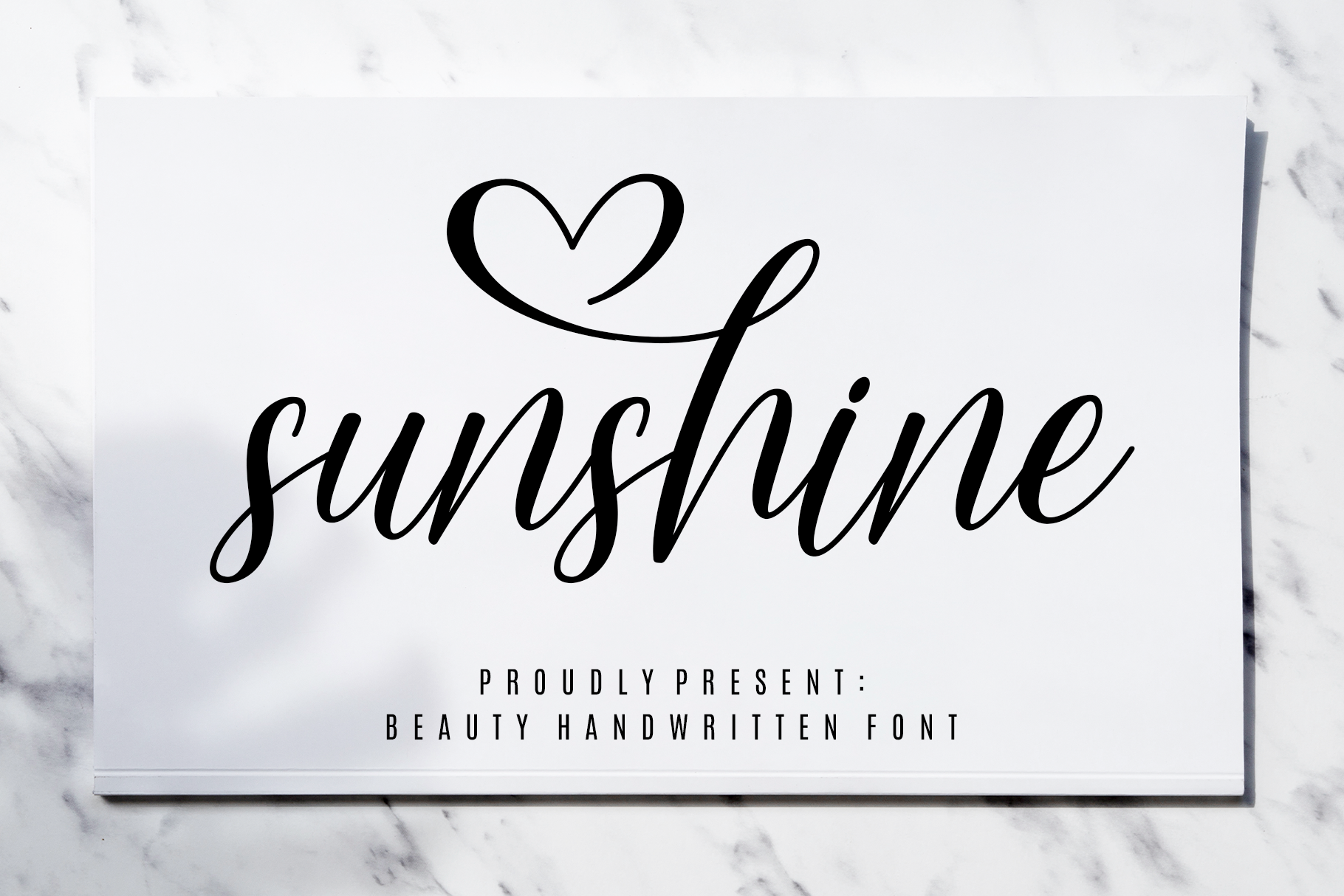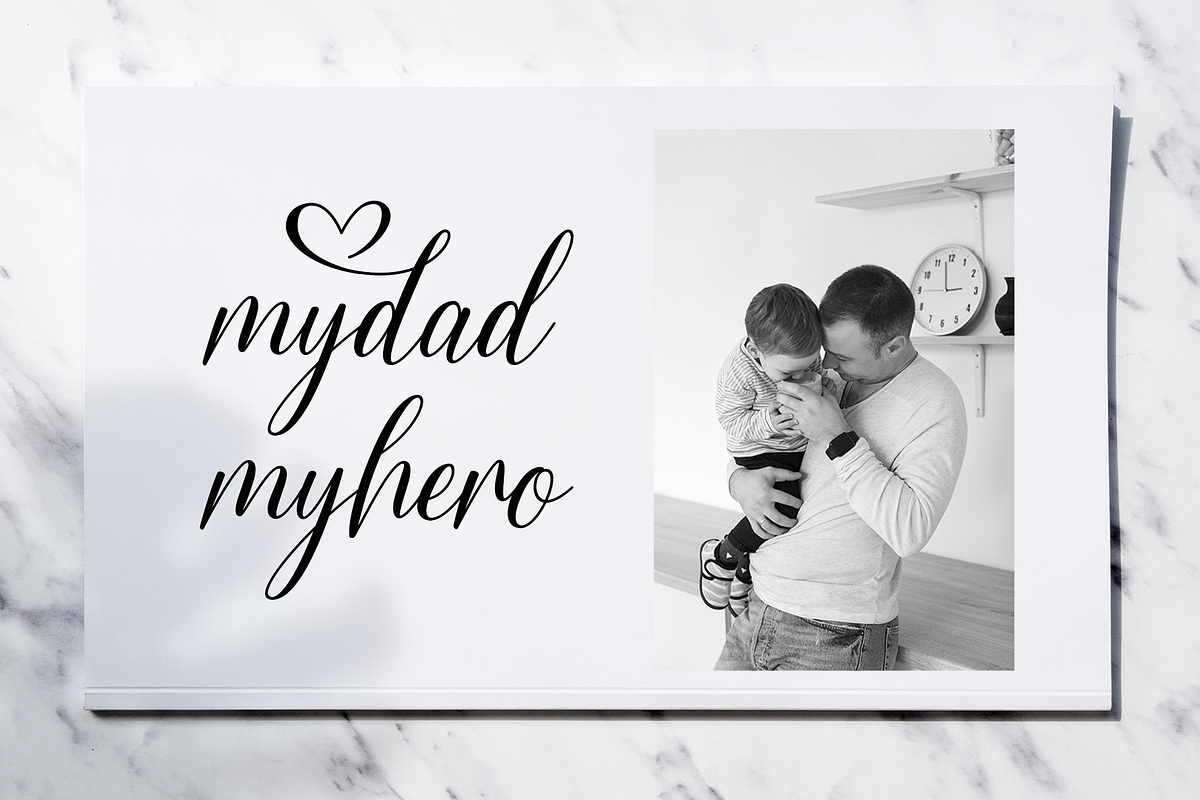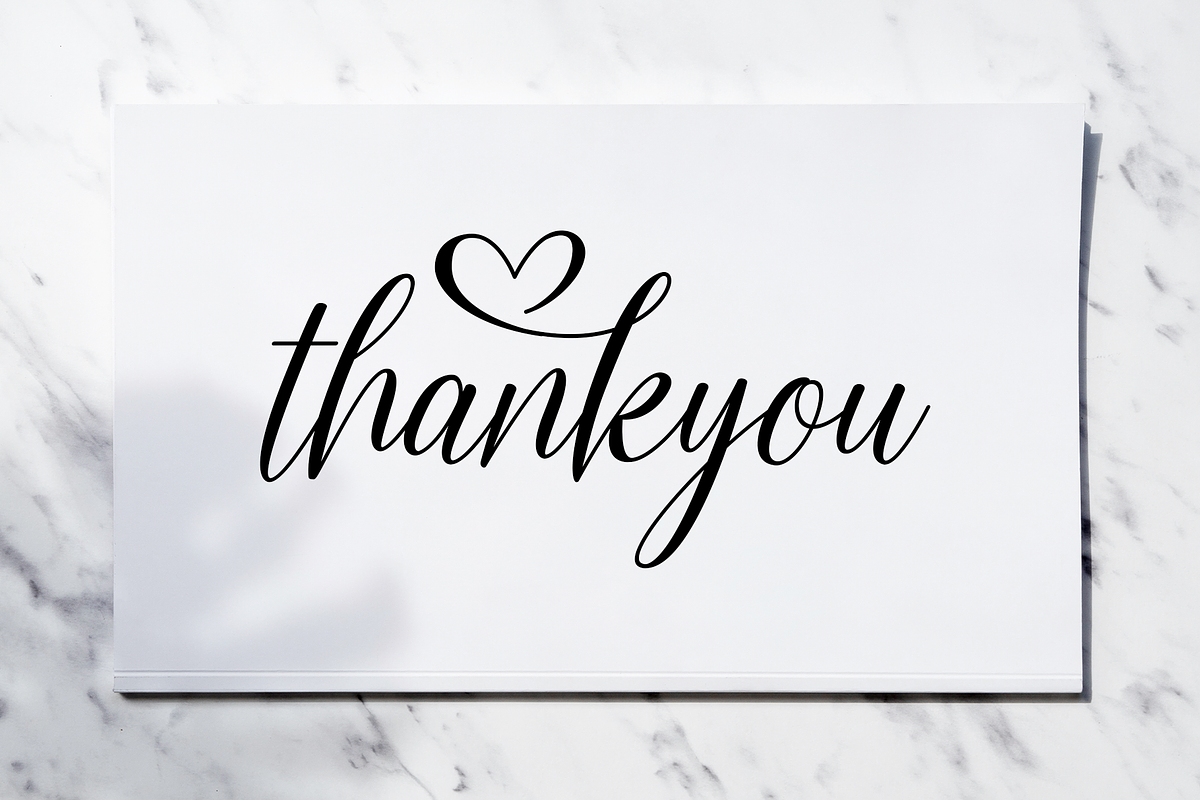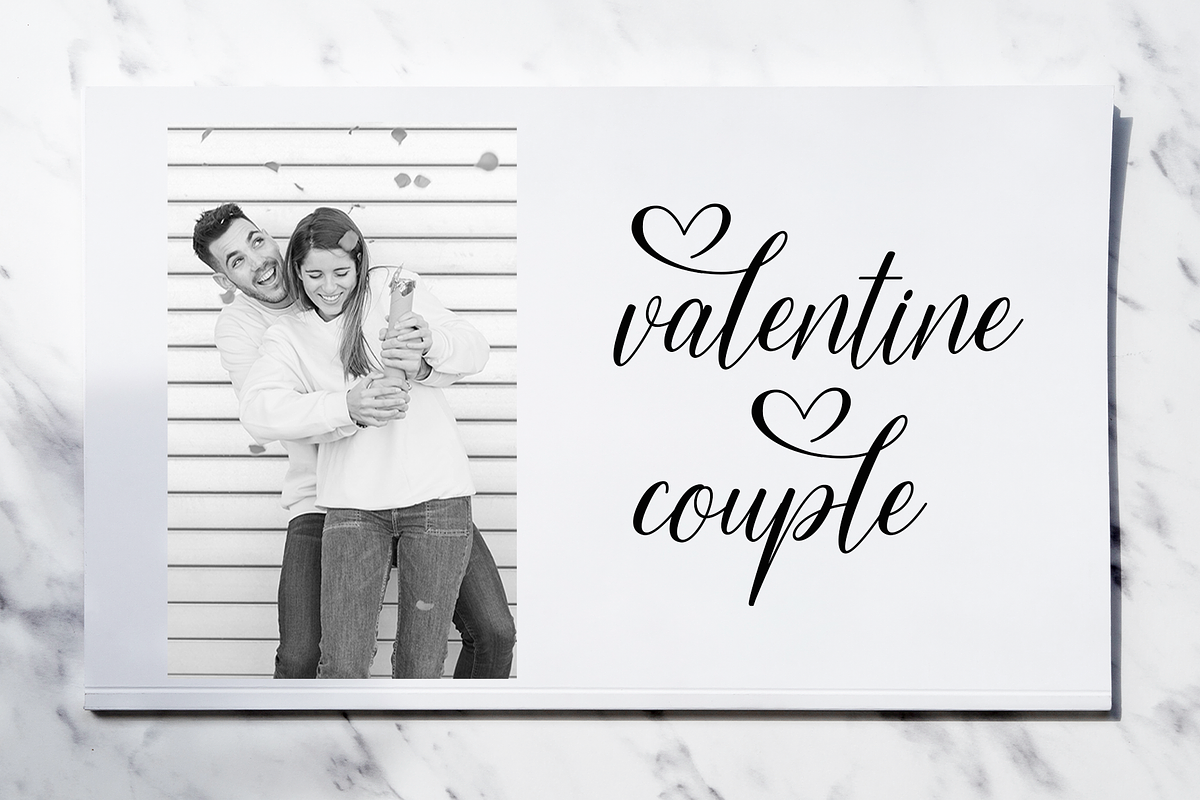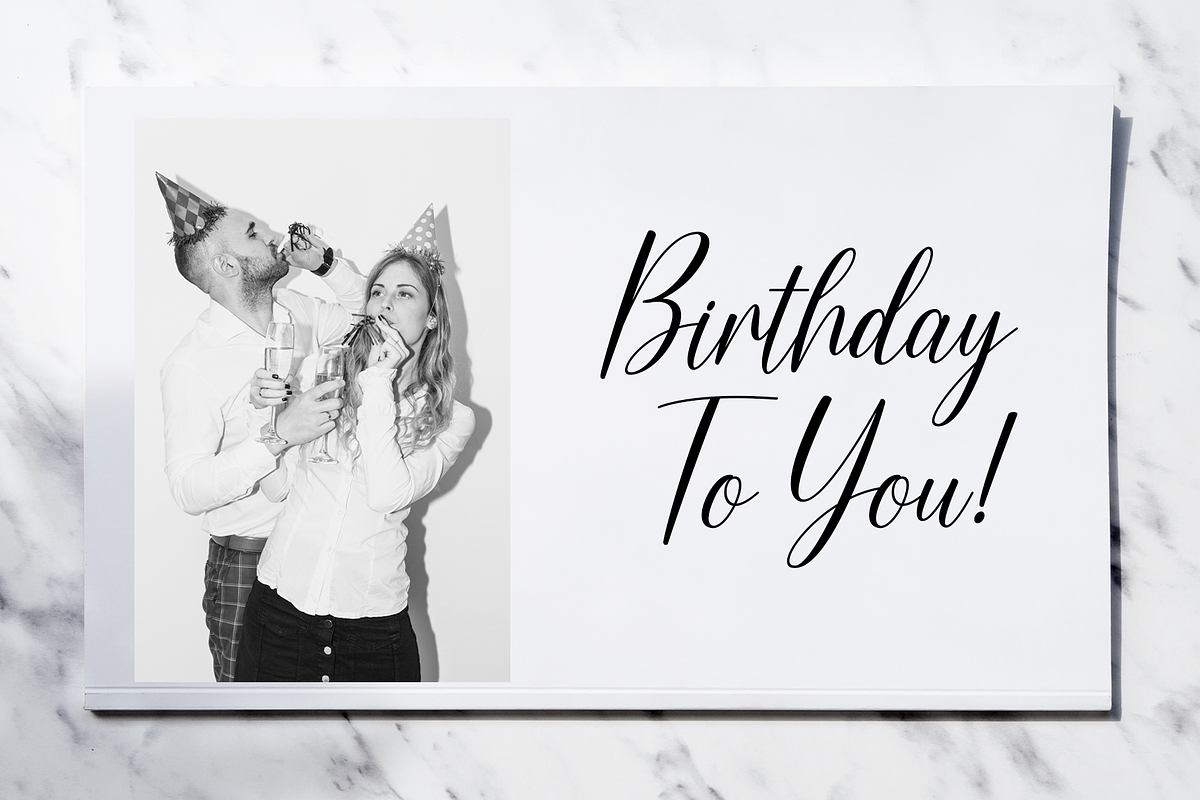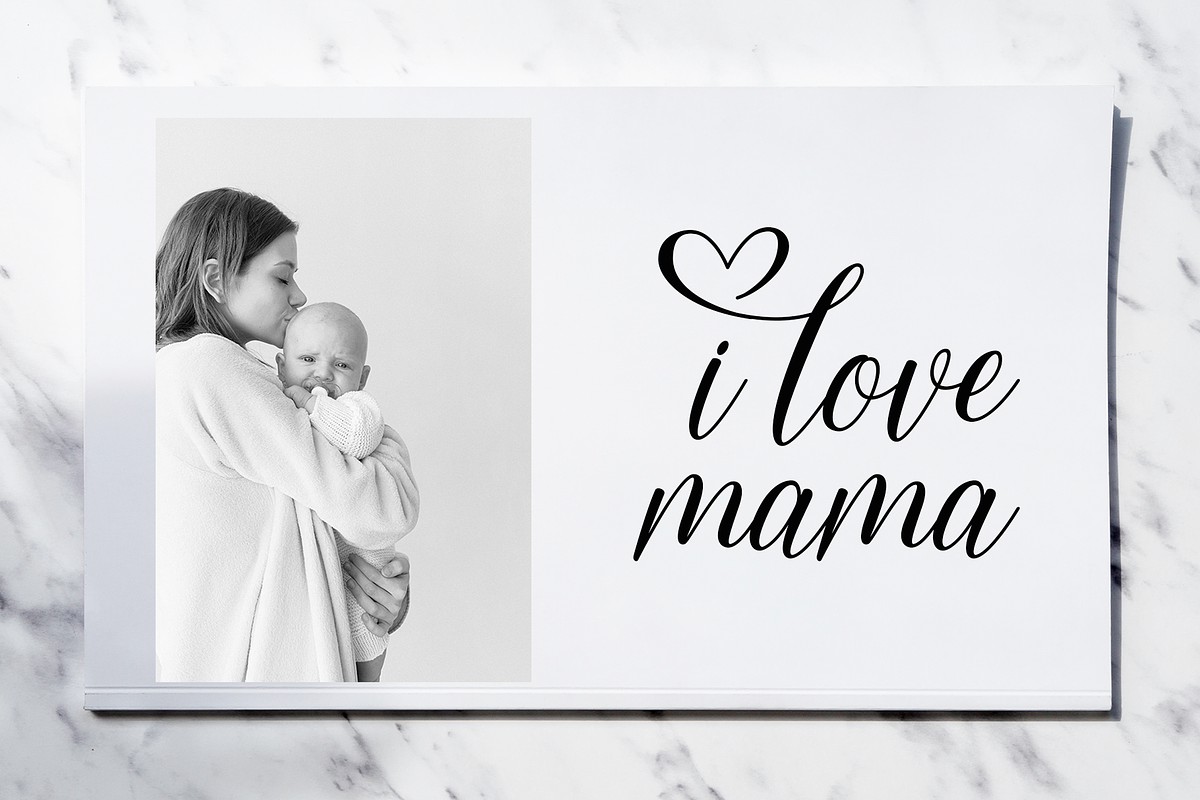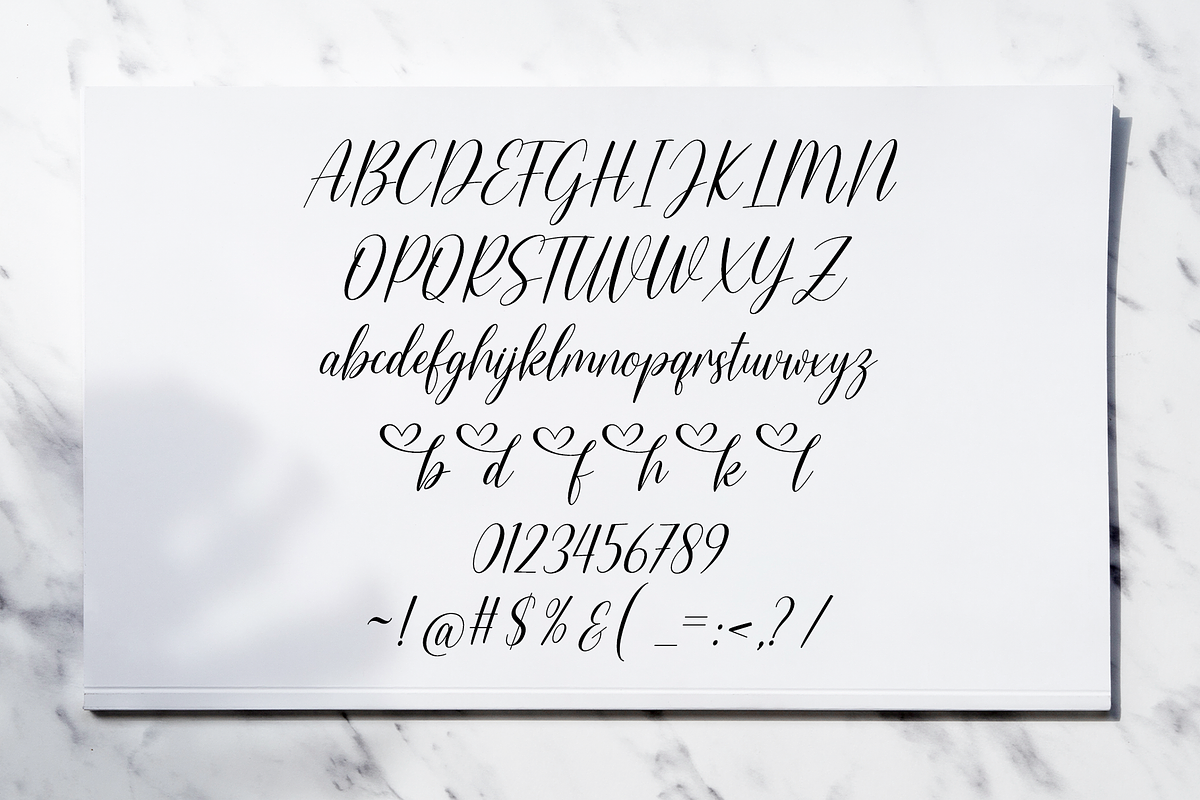
Sunshine - Beauty Handwritten Font
Sunshine is a beautiful and elegant handwritten font, combining a luxurious slant with a dash of love on top. This would be perfect for jobs that require a loving touch!